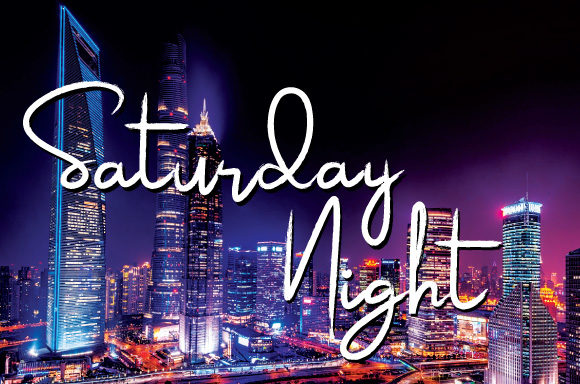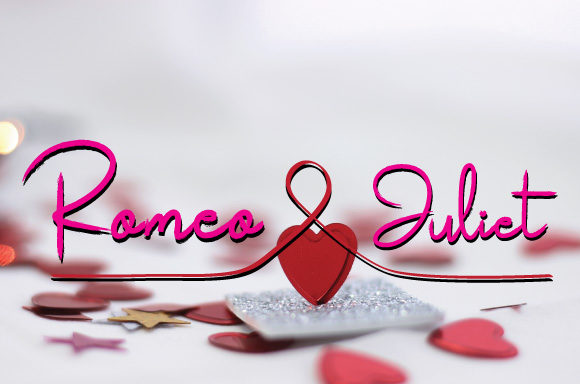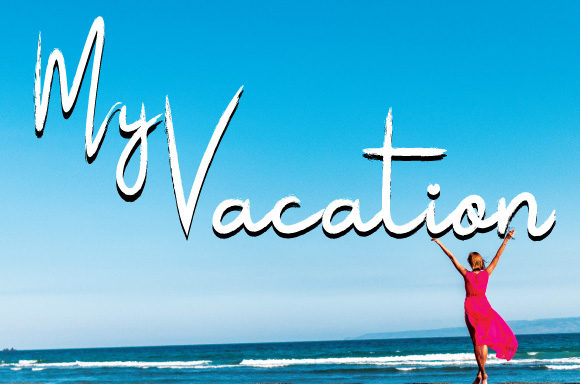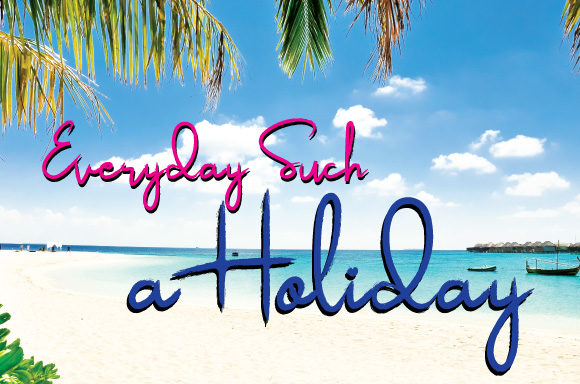
Saturday Night Font
About Saturday Night Font
Saturday Night is a stylish modern handwritten font. It is suitable for branding, signature, wedding invitation, promotion, product packaging, and a variety of other projects. This stunning font is a homage to classic calligraphy. It will elevate a wide range of design projects to the highest level.